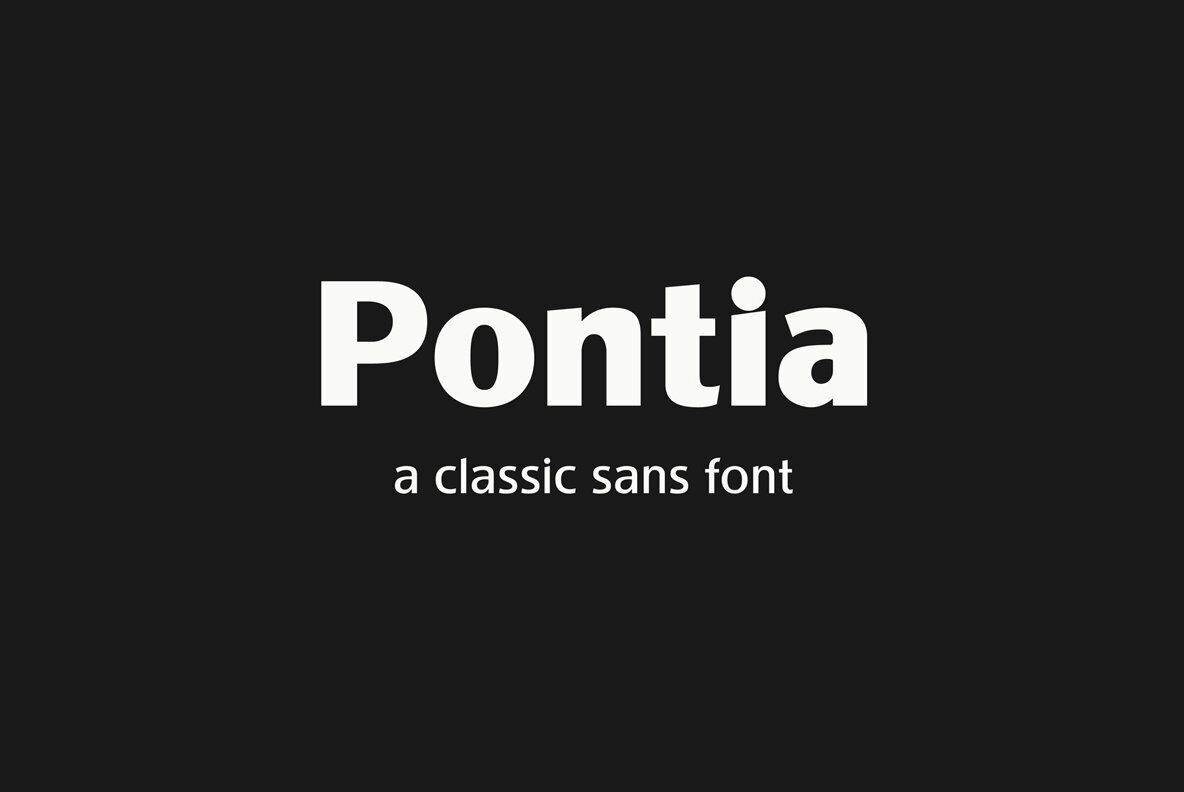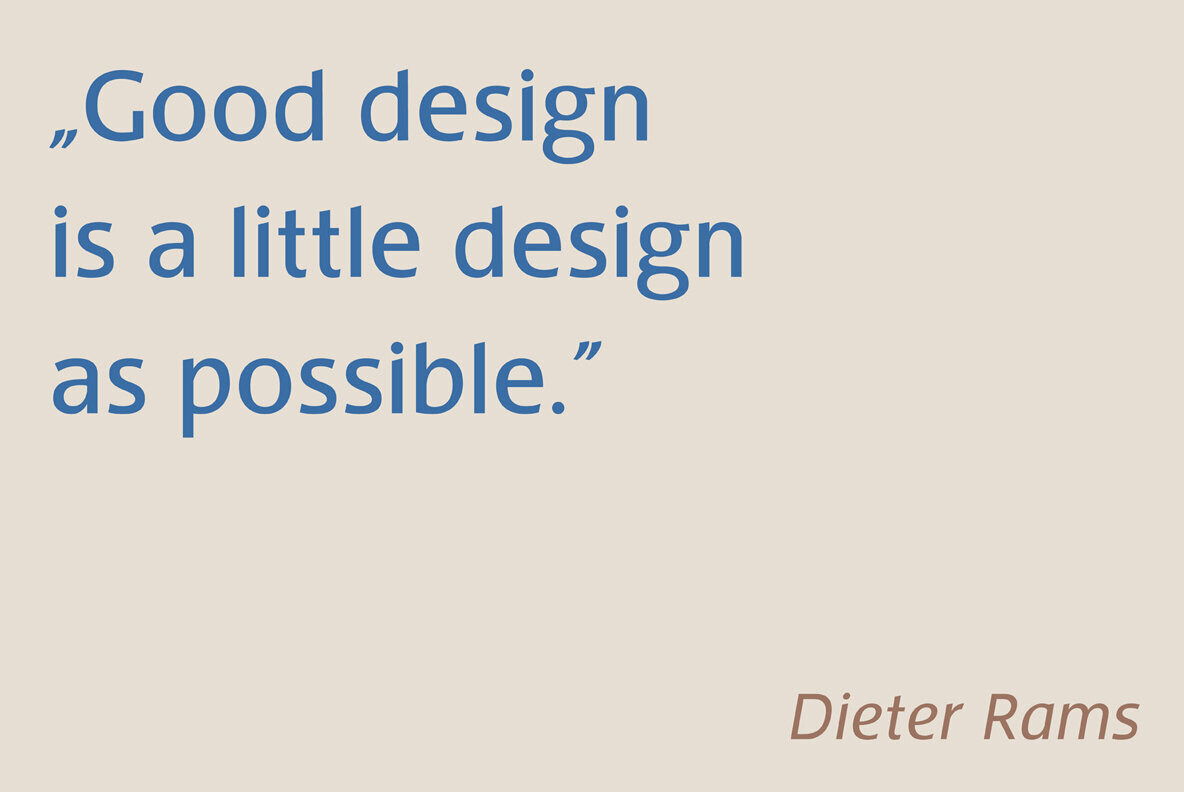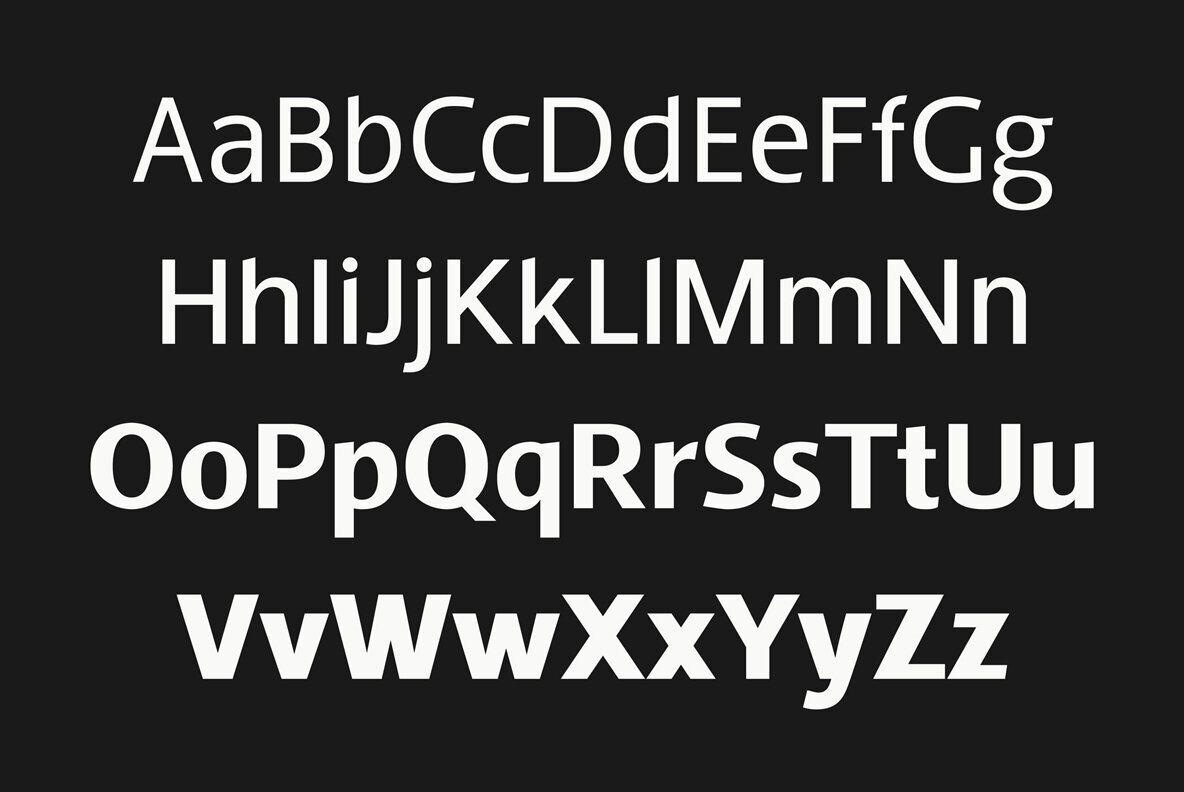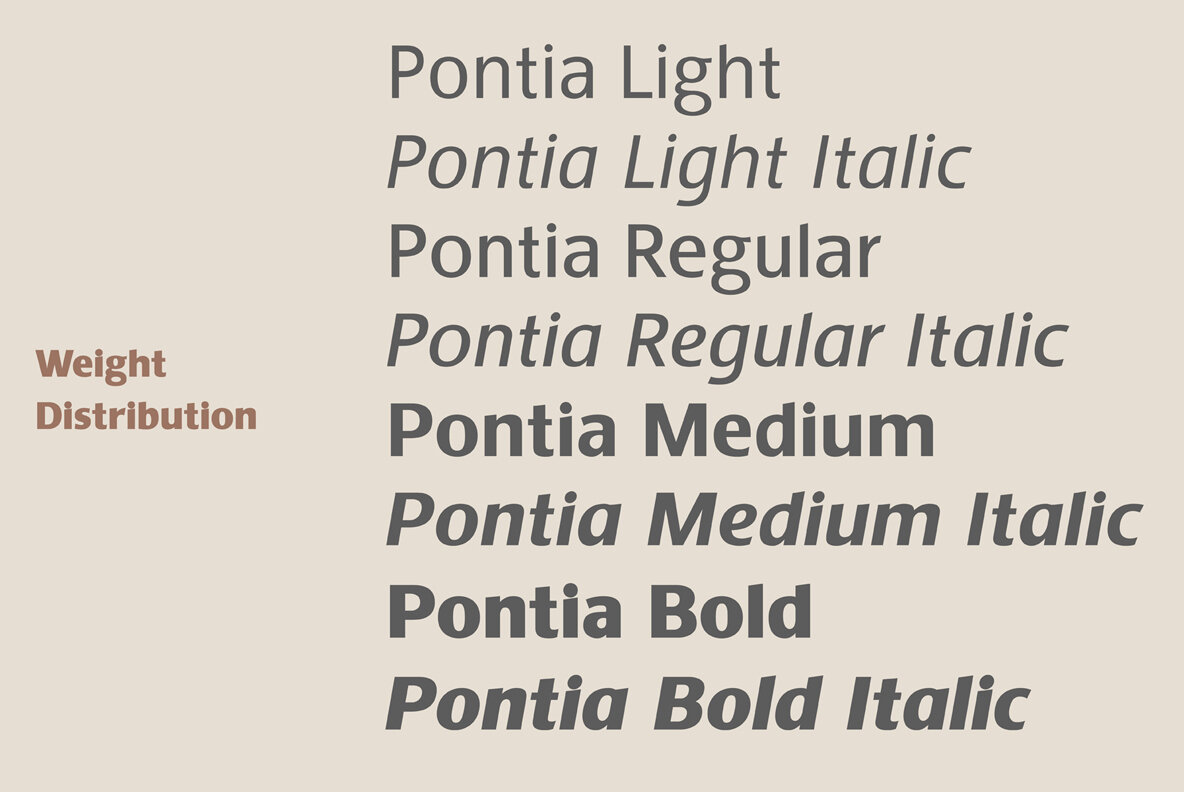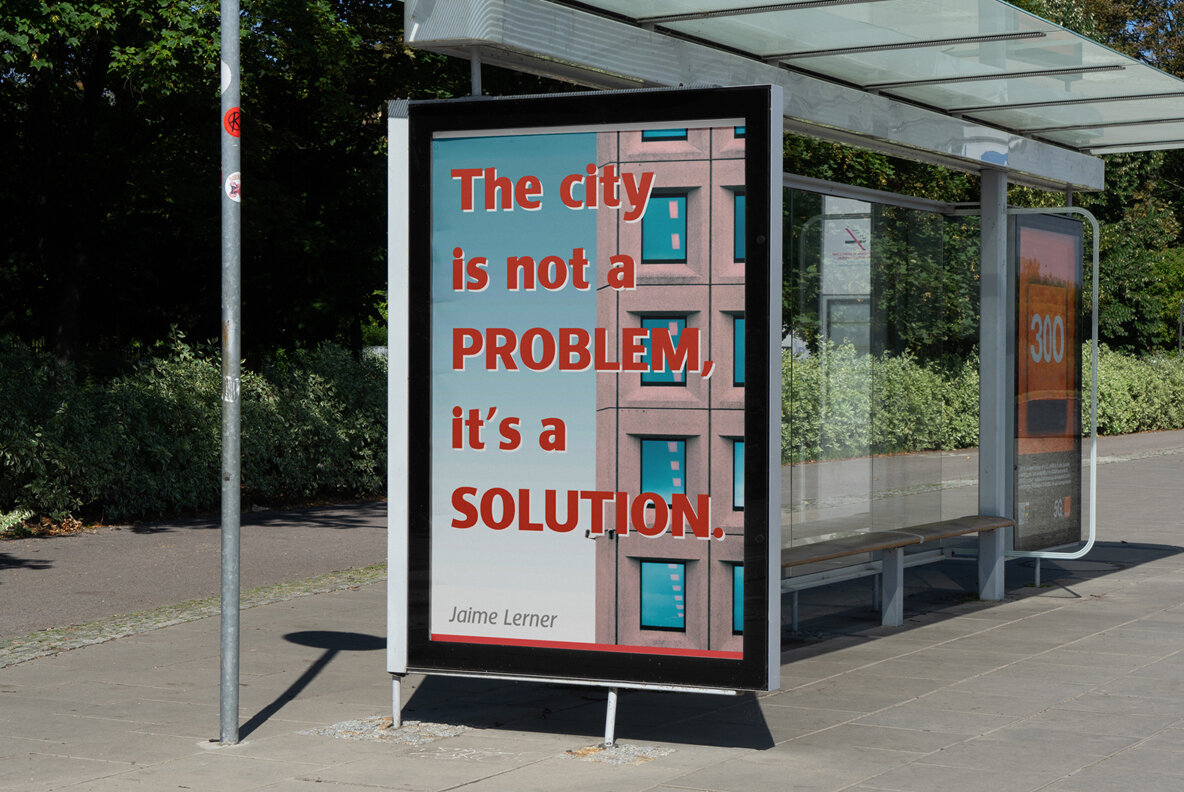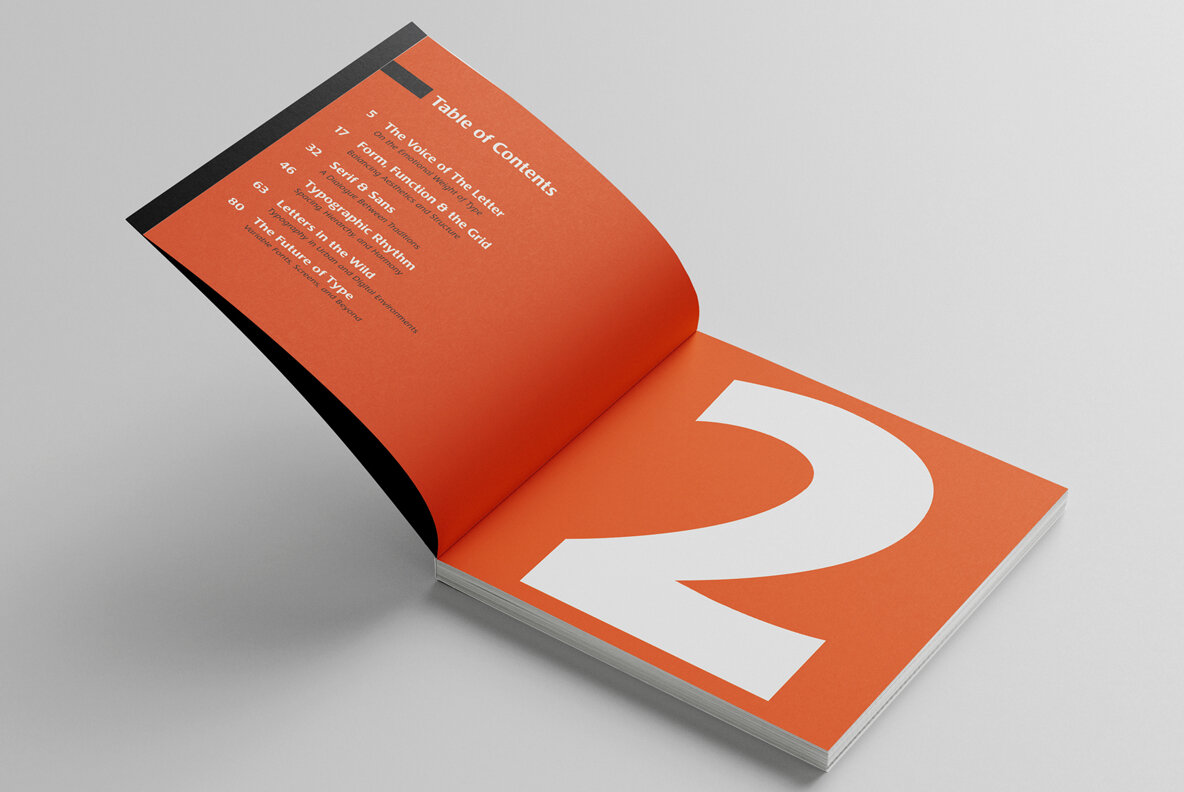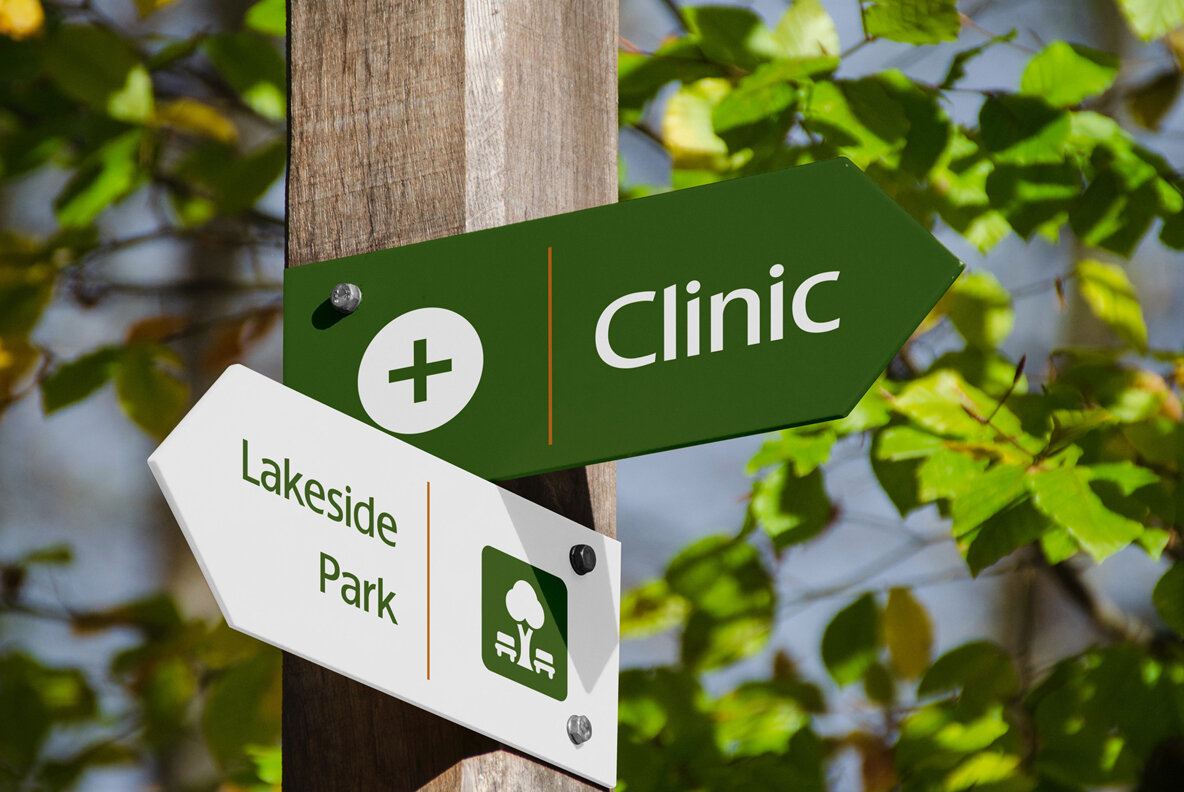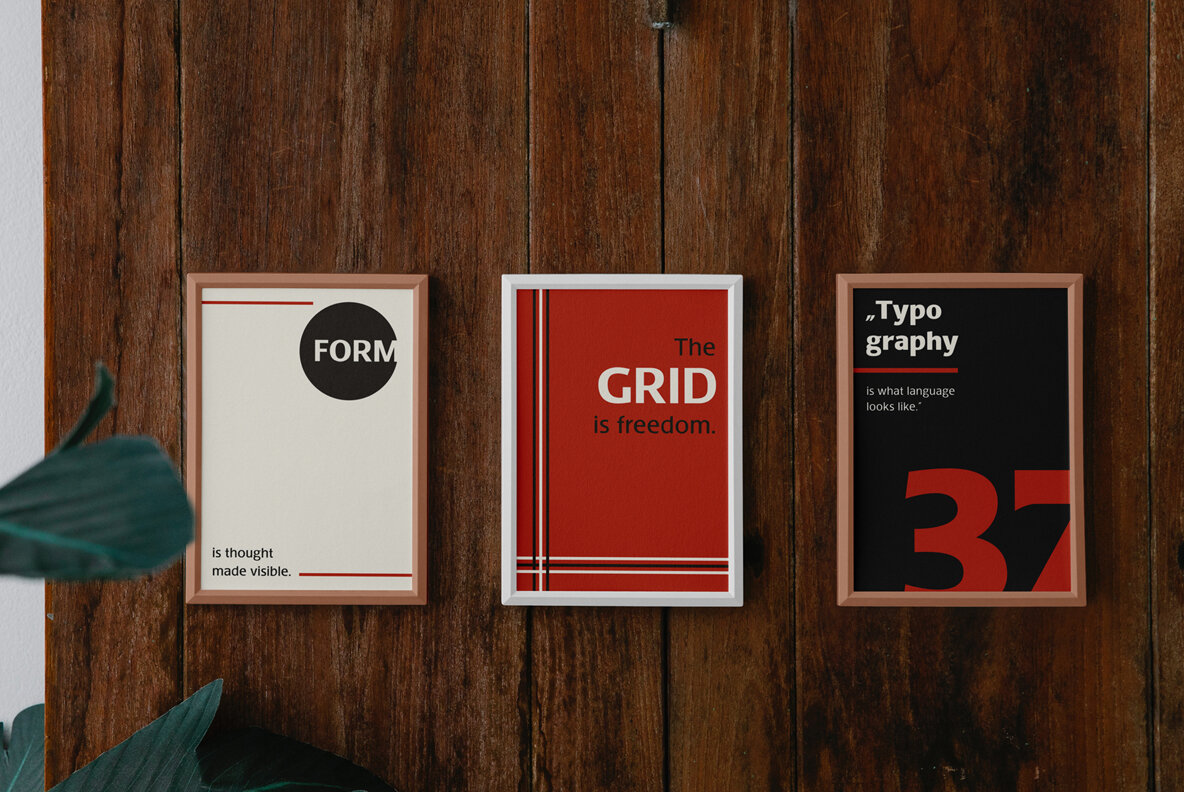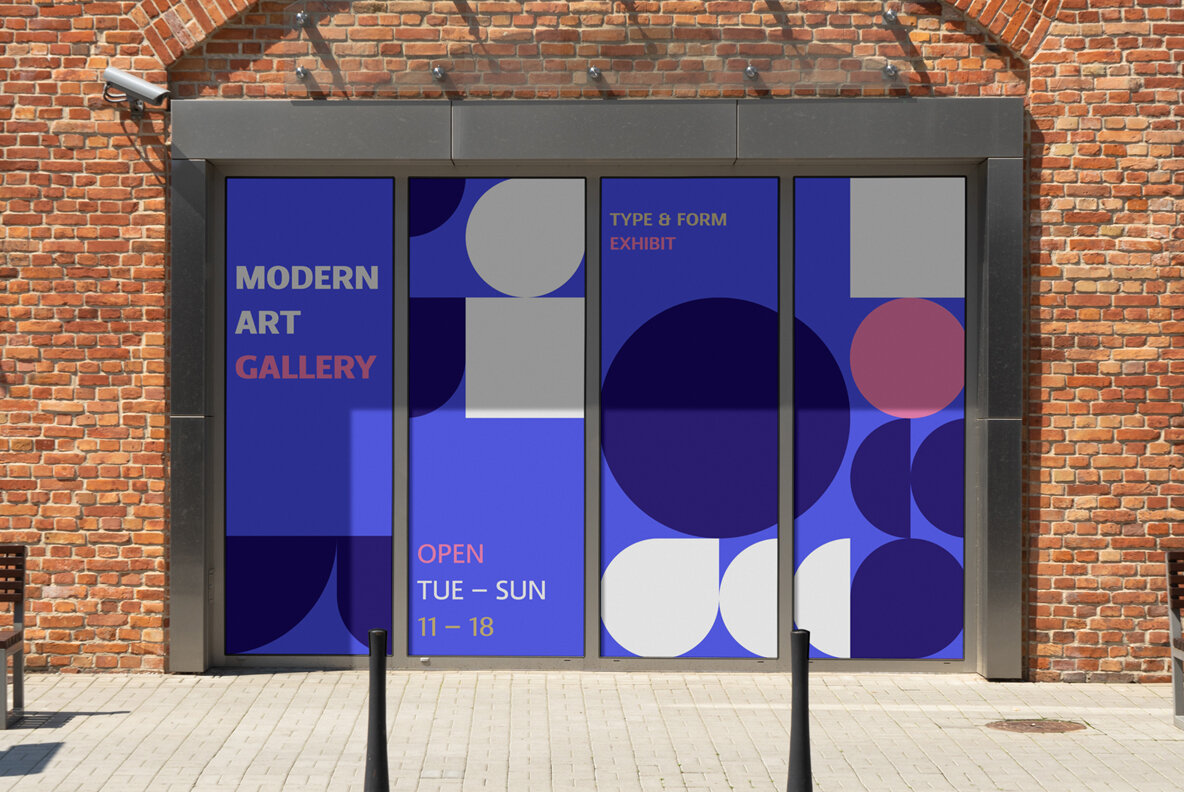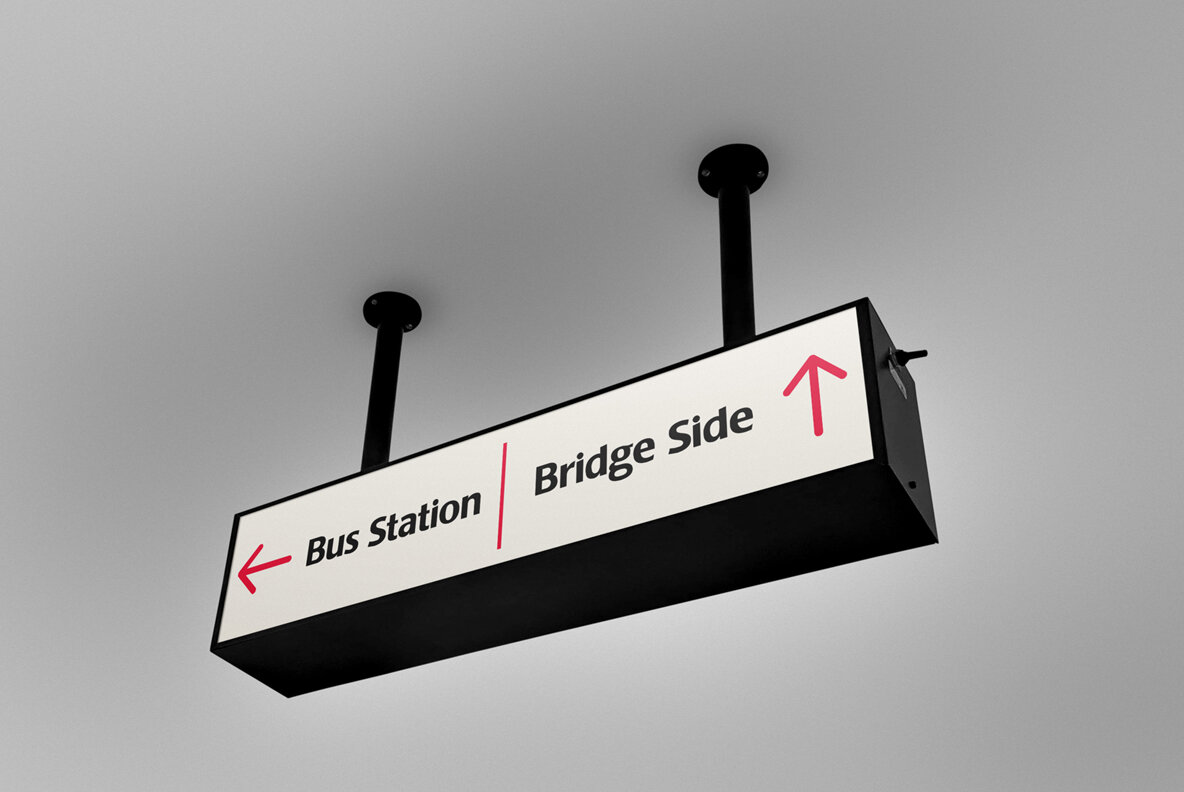
Pontia Sans Font
Pontia Sans is a clean, modern sans-serif typeface with a touch of warmth and character. Drawing inspiration from mid-century grotesques and humanist letterforms, it ensures excellent readability across weights, ranging from Light to Bold. Ideal for branding, editorial layouts, user interfaces, or packaging, Pontia Sans balances professional style and approachability. Its measured proportions and subtle nuances make it equally effective in display and text use. Features: Pontia’s multilingual support includes a wide range of accented characters, enhancing its utility for diverse communication needs. Combining precise craftsmanship with timeless style, Pontia Sans is designed to stand out quietly but confidently.Pontia Sans: Clarity and Warmth in a Modern Sans-Serif